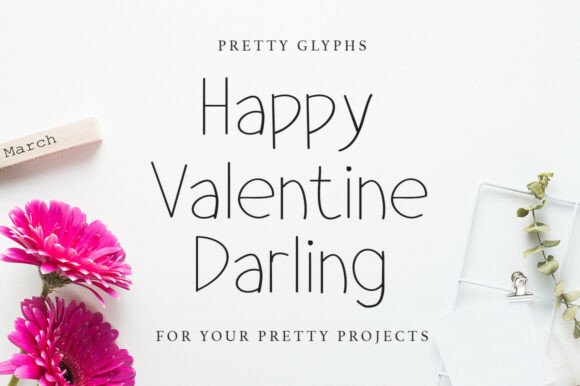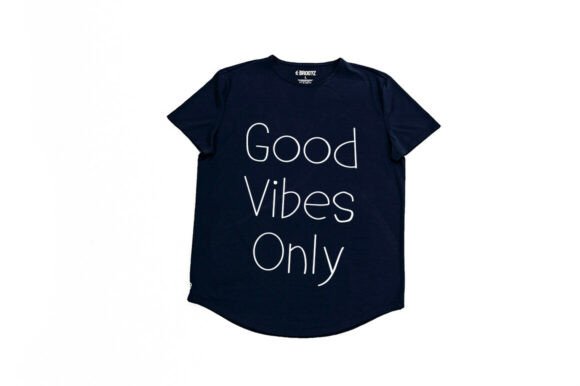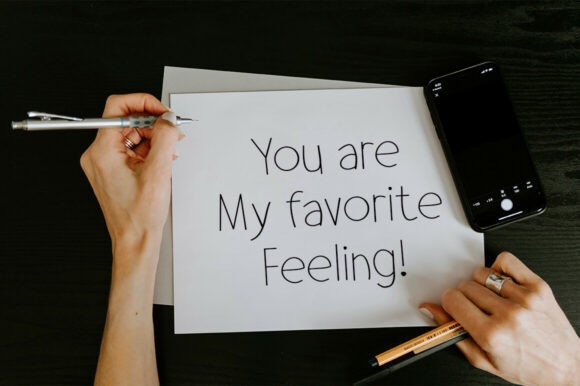
Introduction to Petalina Font Font
Fonts play a crucial role in design, and the Petalina Font font is a typeface that brings both character and versatility to any project. Whether you’re working on a branding project, a website, or a print design, the Petalina Font font offers a unique style that can elevate your work.
Evoke the delicate grace of a botanical sketch with Petalina, an elegant light handwritten font featuring a poetic visual rhythm.
This typeface is built on an ultra-slim, monolinear structure with wide, airy proportions that allow your text to breathe beautifully on the page Its unique character is defined by its organic, slightly imperfect geometry and crisp, fine-tipped lines, making it an extraordinary choice for delicate floral packaging, fine jewelry branding, skincare labels, and high-end wedding stationery.
Key Features of Petalina Font Font
Why Choose Petalina Font Font?
The Petalina Font font is more than just a typeface – it’s a design tool that helps you communicate your message with style and clarity. Its unique character set and versatile design make it suitable for a wide range of applications, from elegant invitations to bold headlines.
With its carefully crafted letterforms and balanced proportions, the Petalina Font font ensures readability and visual appeal across all mediums.
What makes Petalina Font font special?
The Petalina Font font stands out with its unique design, exceptional readability, and versatility across various design applications.